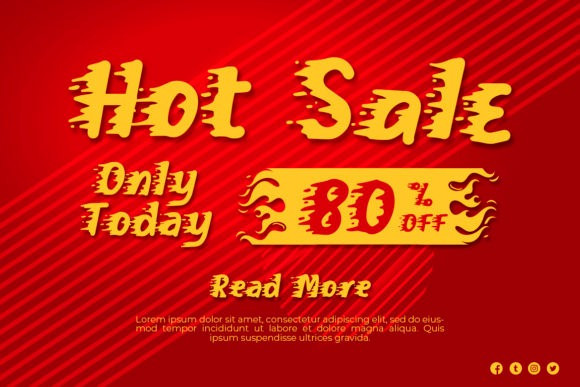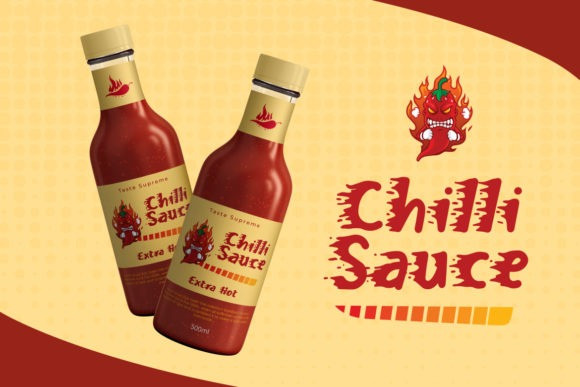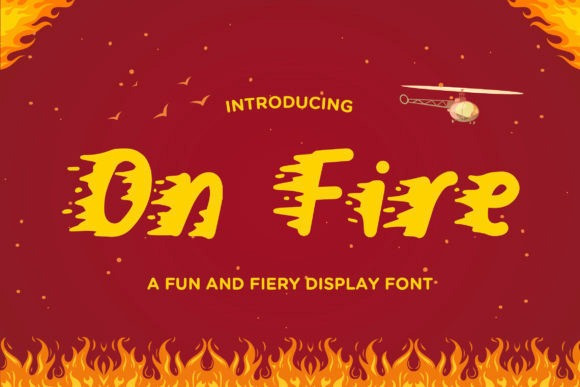
On Fire Trial Display Font
On Fire is a cool, original and fun display font, featuring a spicy feel. This original look will appeal to a wide range of crafty ideas, from letterheads and titles, to stationery.